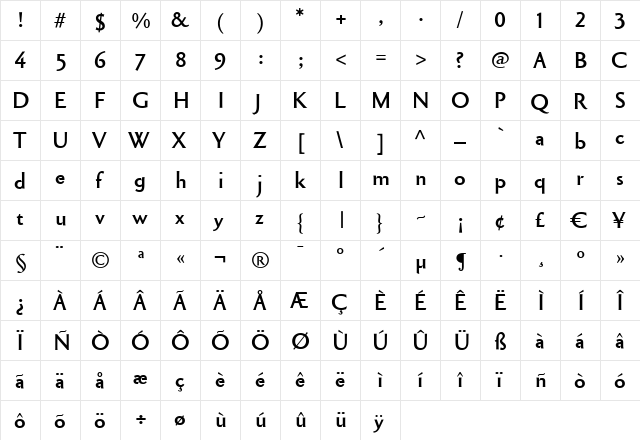
Cimiez Bold
Design Context for Cimiez Typeface
Cimiez offers clean, dependable letterforms without strong stylistic allegiance, making it a practical choice for designers who need flexibility. The heavy weight commands attention and anchors typographic hierarchies.